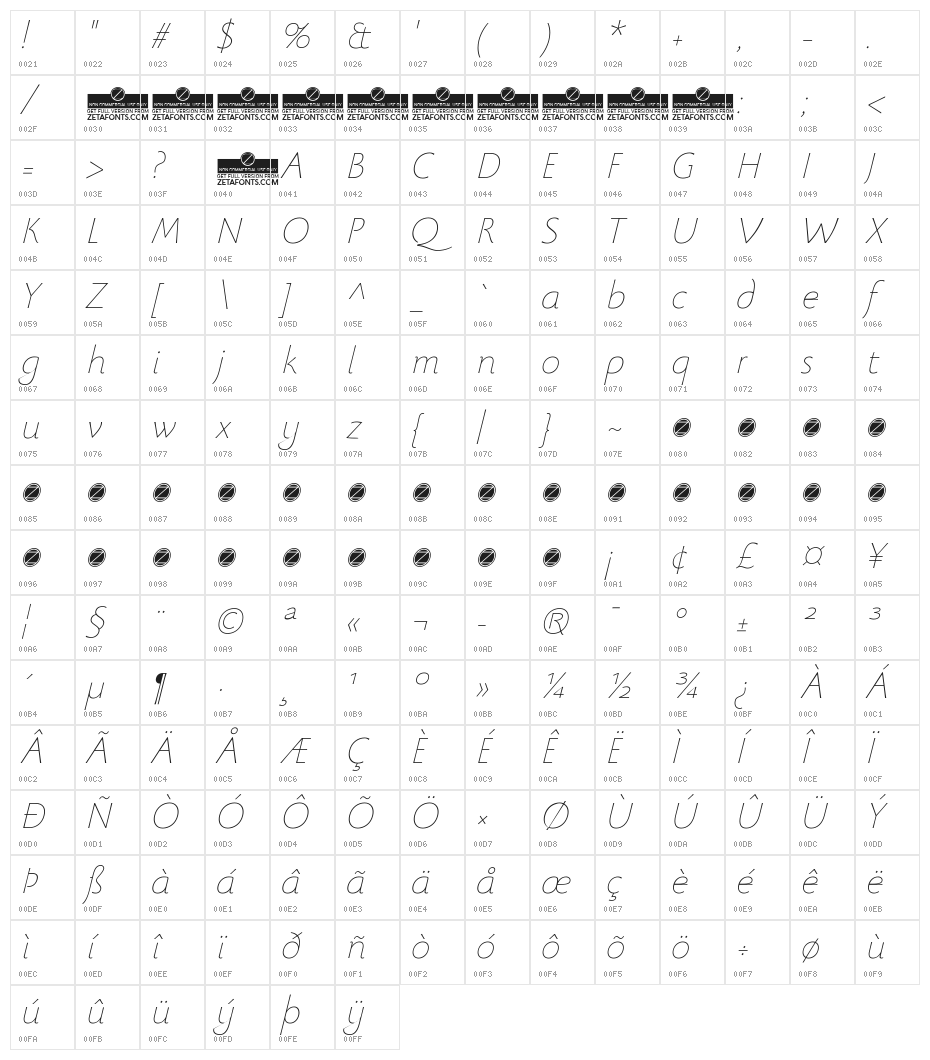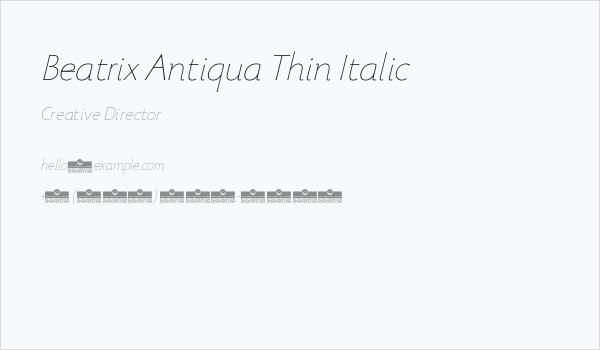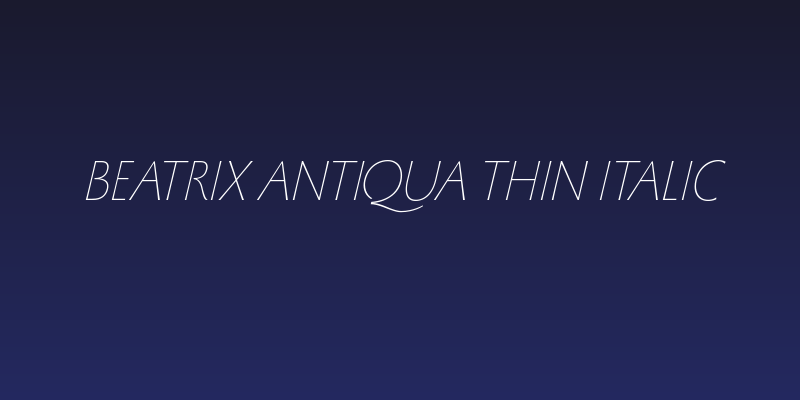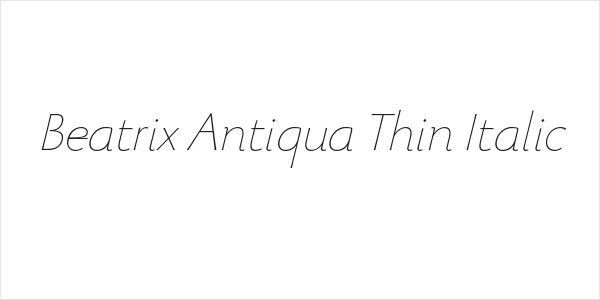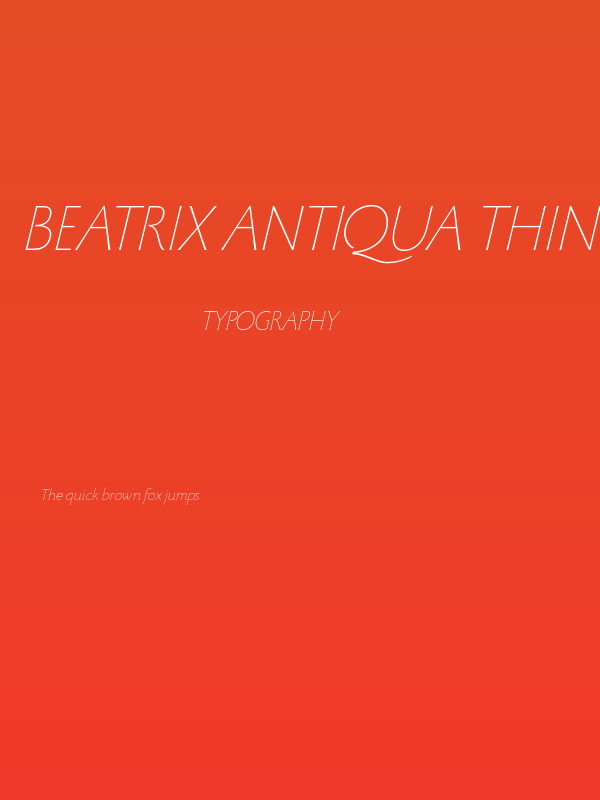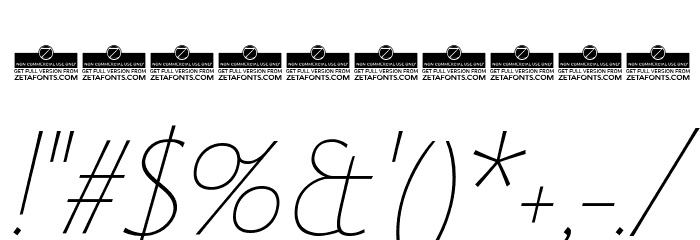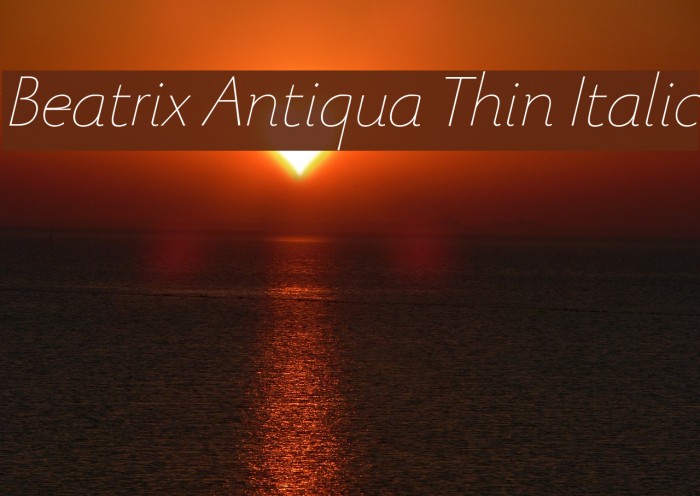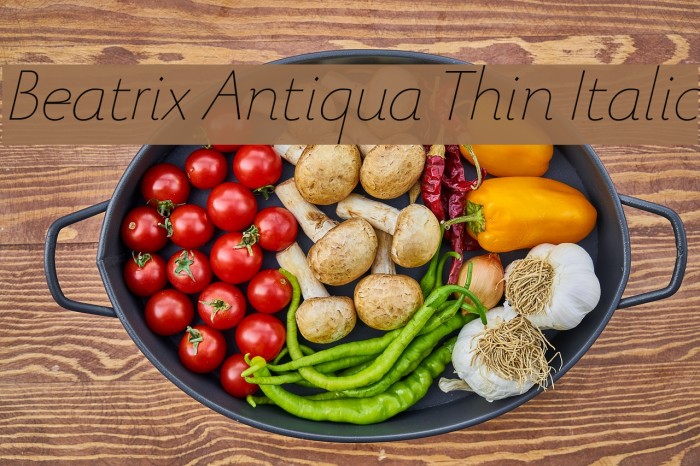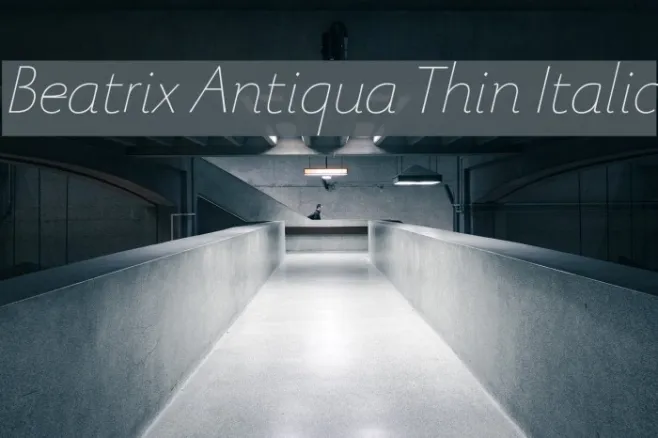
Beatrix Antiqua Thin Italic Font
Beatrix Antiqua Thin Italic Description
This elegant typeface features a thin, italicized design that exudes sophistication and grace. The characters are delicately crafted with a consistent slant, offering a sense of fluidity and movement. The uppercase letters are tall and slender, while the lowercase letters maintain a harmonious balance with their slightly rounded forms. The numerals and special characters are designed with the same attention to detail, ensuring a cohesive look across all elements. The thin strokes and subtle curves make it ideal for projects that require a touch of elegance and refinement.
| Proposed Projects | Perfect for wedding invitations, luxury branding, fashion magazines, and elegant website headers. |